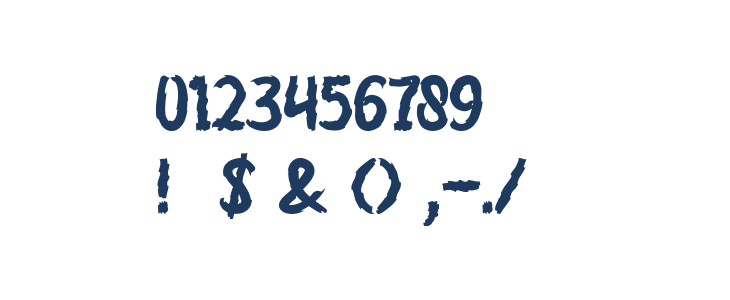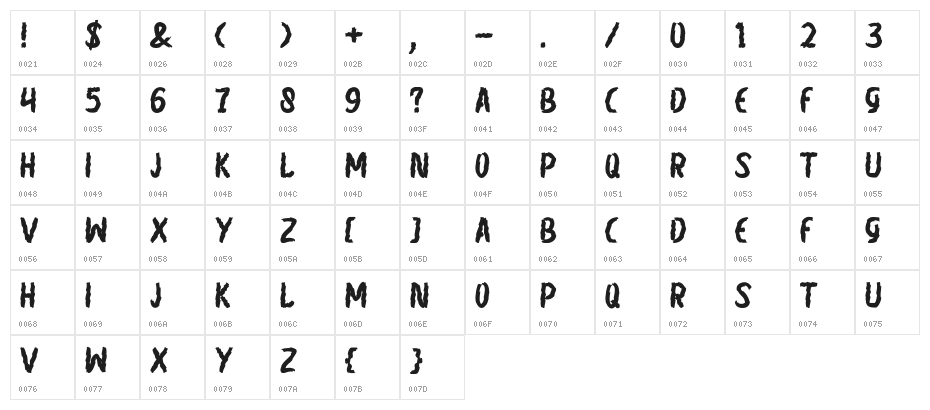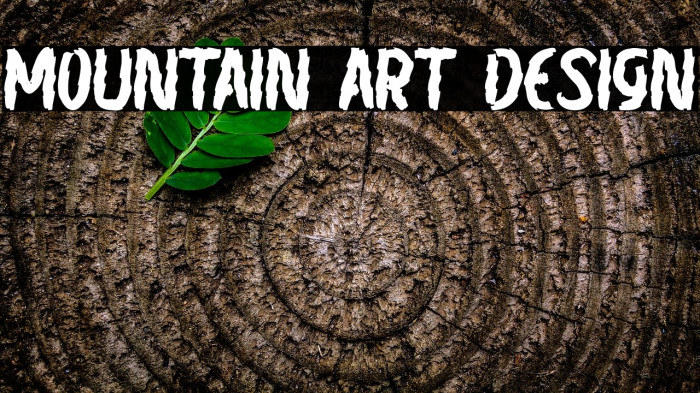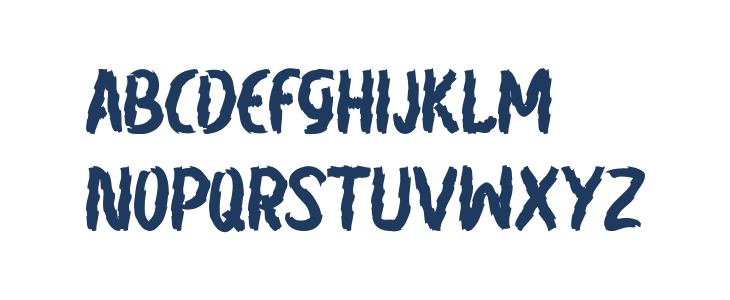
mountain art design Font
mountain art design Description
This font features a bold and expressive style, reminiscent of brush strokes with a rugged, hand-painted appearance. The characters are thick and dynamic, with uneven edges that give a sense of movement and energy. The uppercase and lowercase letters maintain a consistent style, with a slightly condensed form that enhances their boldness. Numbers and special characters follow the same aesthetic, making them cohesive with the alphabet. This font's unique and artistic flair makes it stand out, suitable for projects that require a strong visual impact.
| Proposed Projects | Ideal for posters, logos, branding, and any design requiring a bold, artistic touch. |